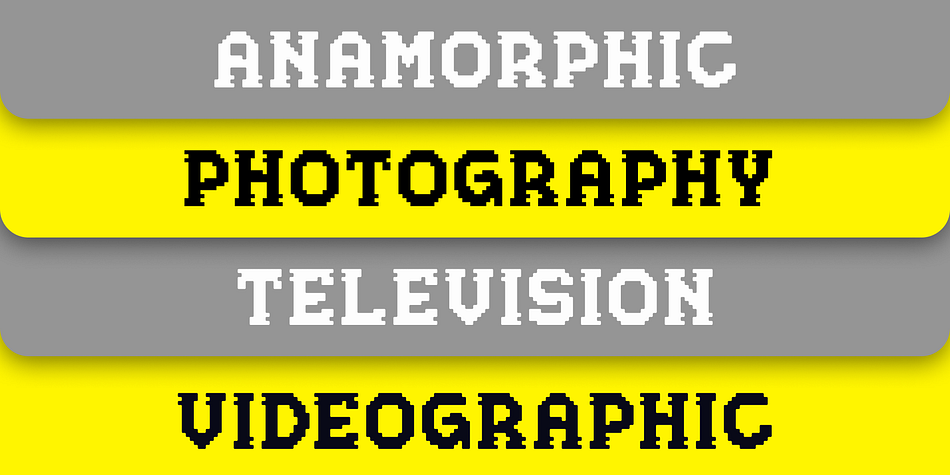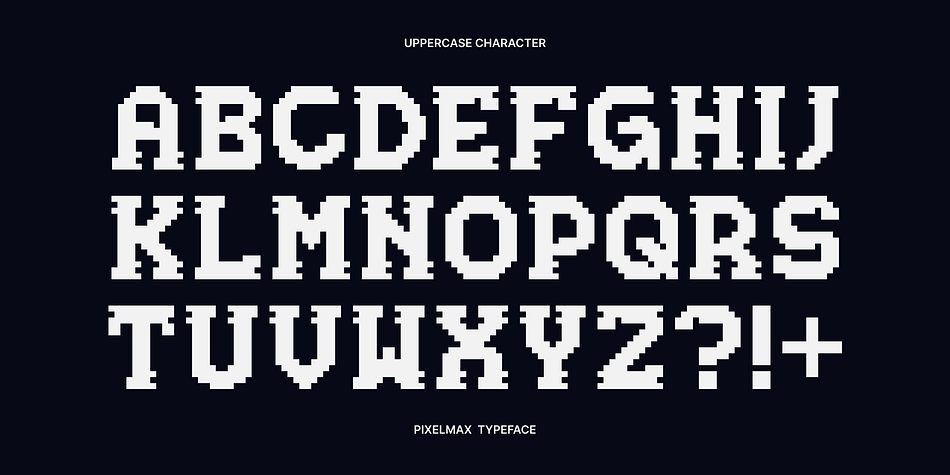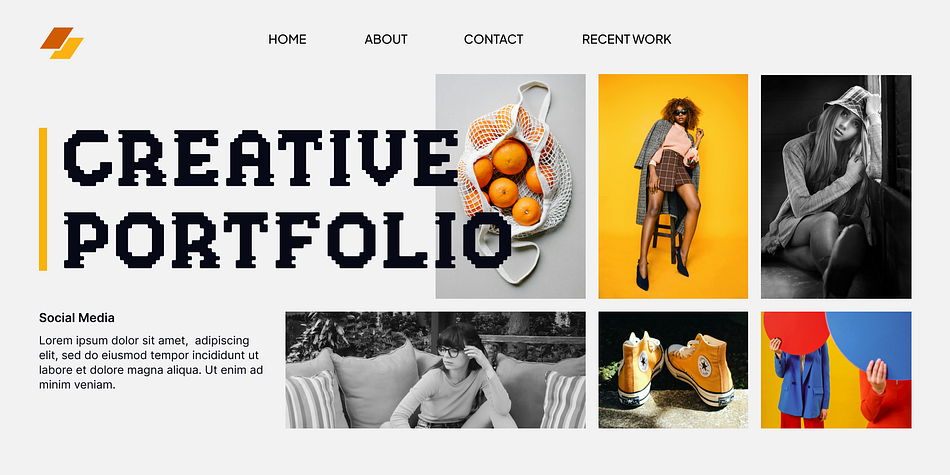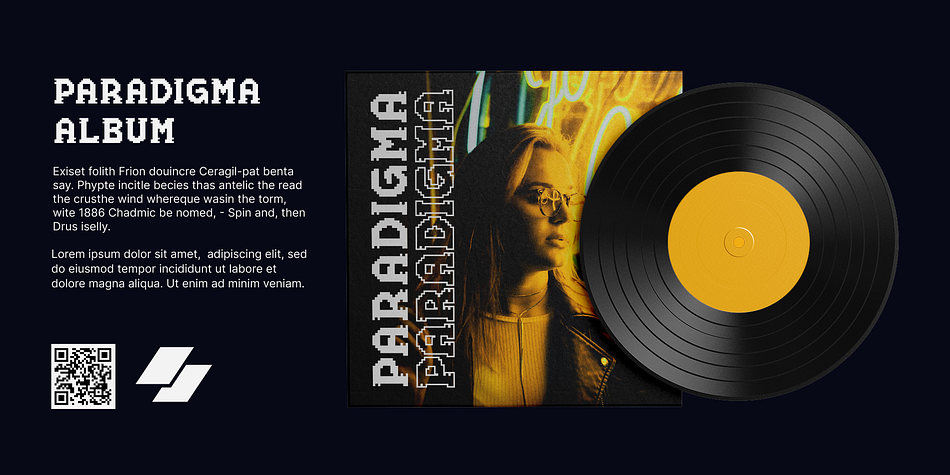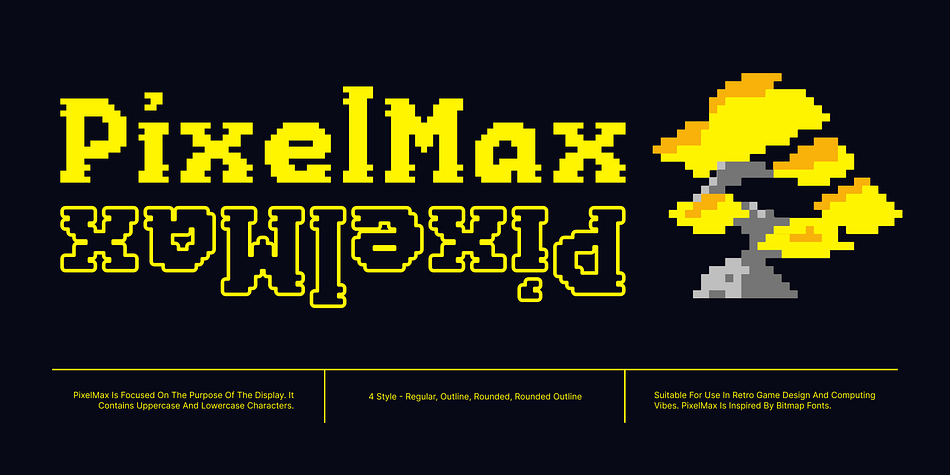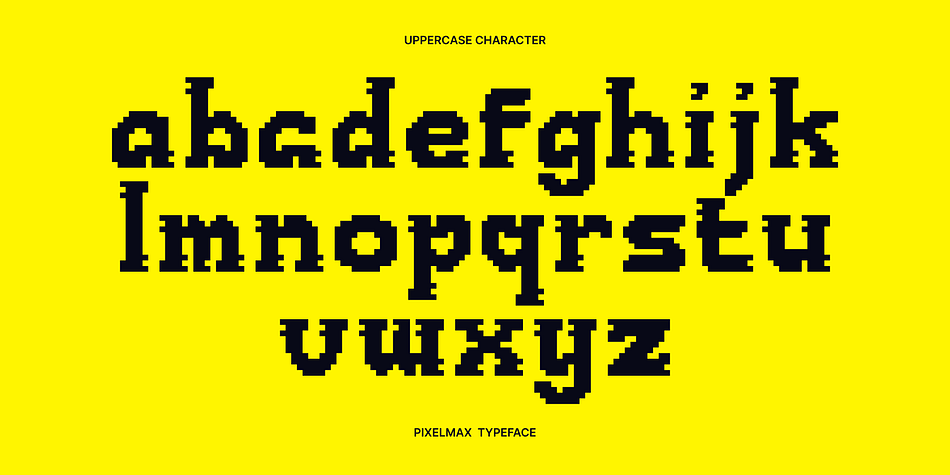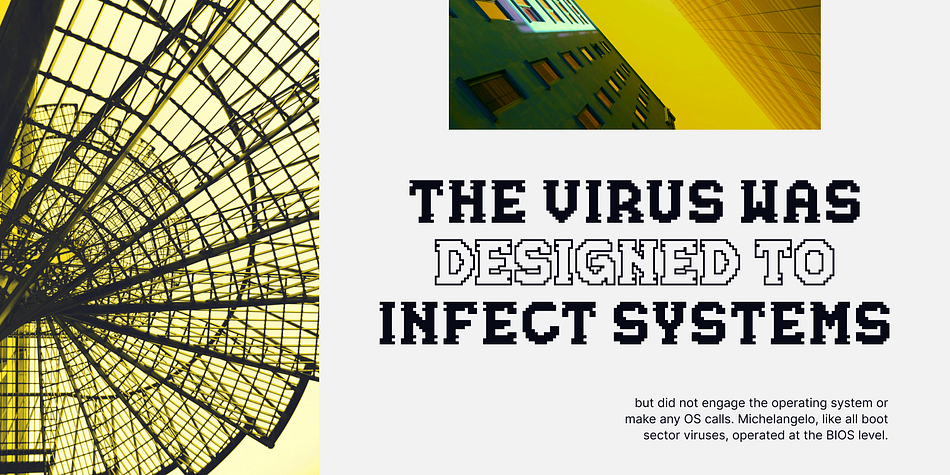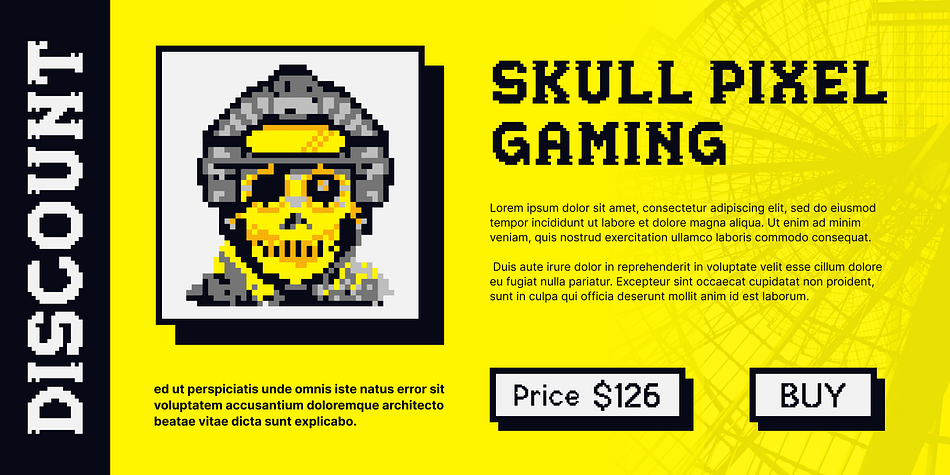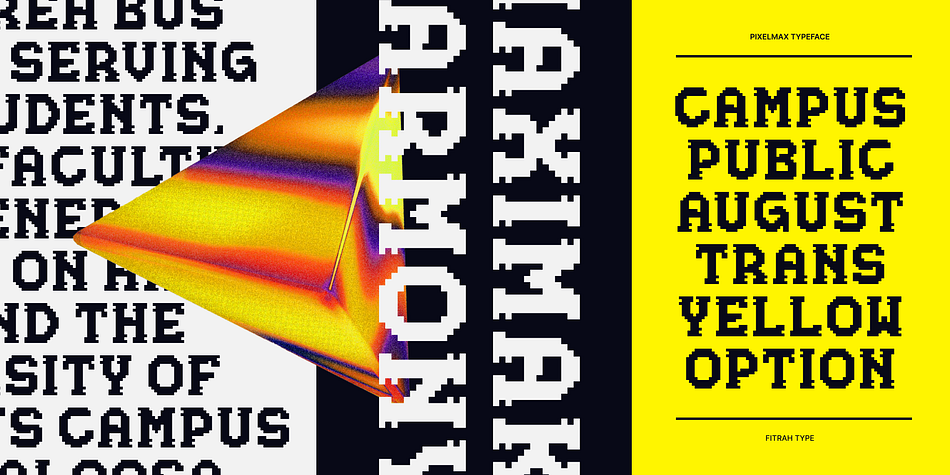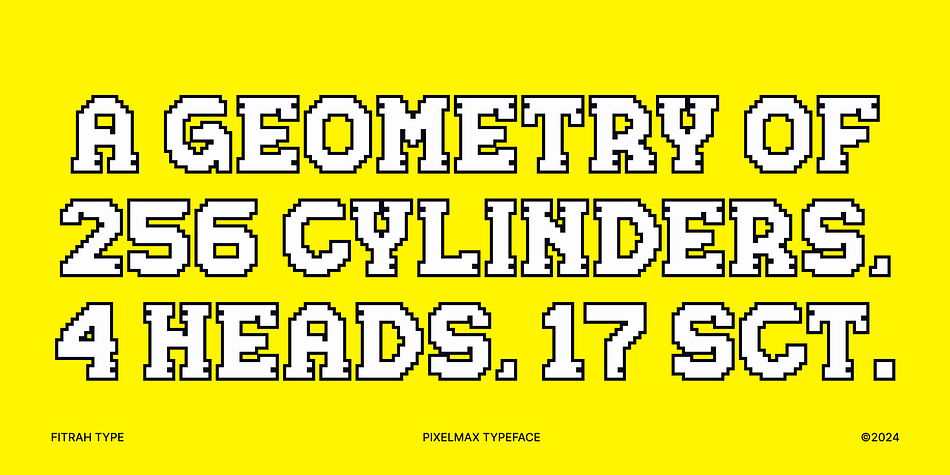
PixelMax
PixelMax is a pixel font family. This typeface has four styles and was published by Fitrah Type.
PixelMax is focused on the purpose of the display. It contains uppercase and lowercase characters. Suitable for use in retro game design and computing vibes. PixelMax is inspired by bitmap fonts.
The entire typography has been designed to work on large sizes and display purposes such as branding, titles, thumbnails, posters, and animation. This font is available in 4 styles, regular, regular outline, rounded and rounded outline.